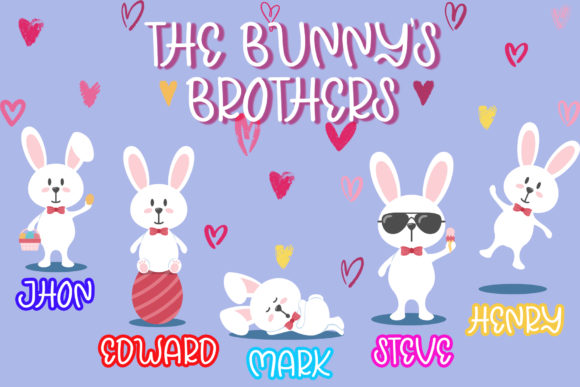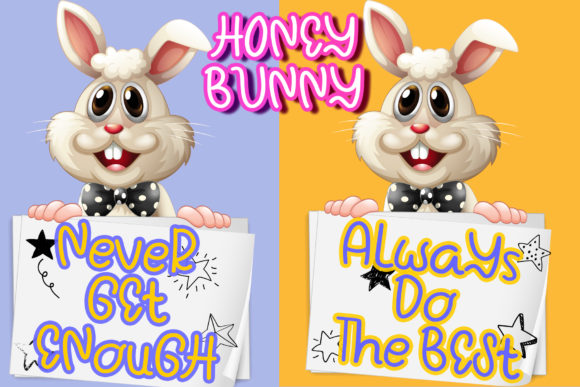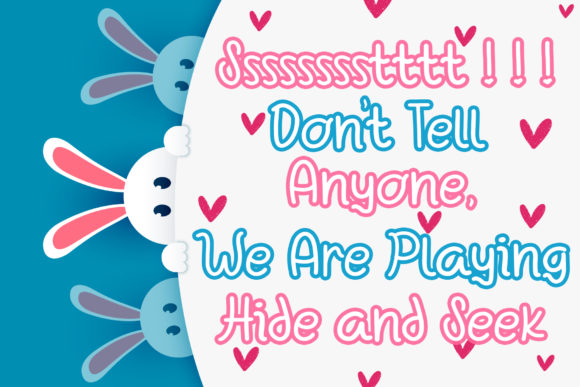
About Honey Bunny Font
Honey Bunny is a sweet and friendly handwritten font. This font is perfect for children themed designs, especially when combined with bright colors.